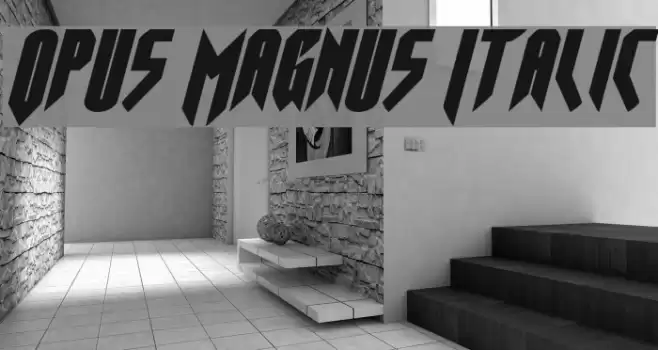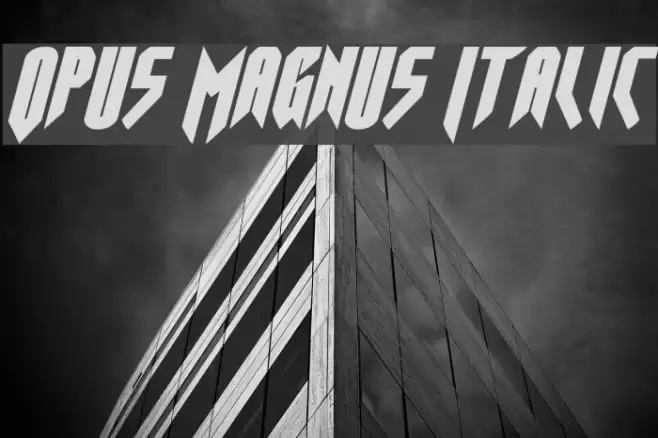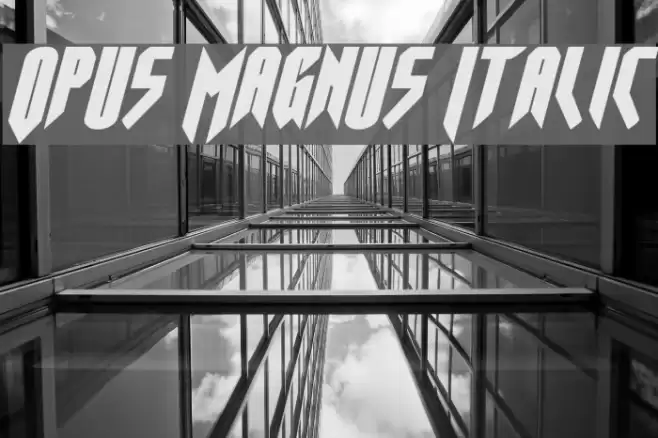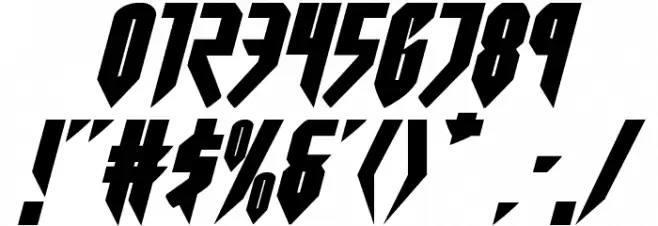
Opus Magnus Italic Font
Opus Magnus Italic Description
This font features a bold, angular design with sharp edges and a dynamic, italicized slant. The characters are heavily stylized, giving them a futuristic and aggressive appearance. The uppercase and lowercase letters maintain a consistent style, with exaggerated points and diagonal lines that create a sense of movement. The numbers and special characters follow the same aesthetic, ensuring a cohesive look across all elements. The font's unique style makes it stand out, making it suitable for projects that require a strong visual impact.
A bold, angular, and italicized font with a futuristic and aggressive style from Uncategorized fonts.
- Proposed Projects: Ideal for video game titles, sci-fi movie posters, sports team logos, and edgy branding materials.
- Character Spacing: Tight
- Overall Style: Futuristic